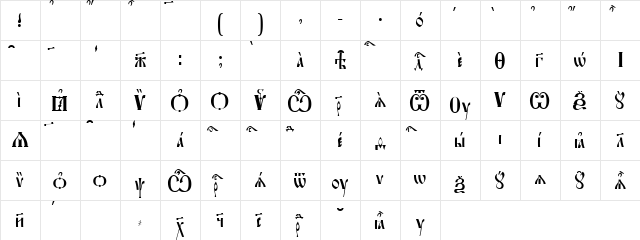
Feofan Ucs Regular
Design Context for Feofan Ucs Typeface
Feofan Ucs is a composed and adaptable typeface that performs quietly and consistently across a wide range of design contexts.